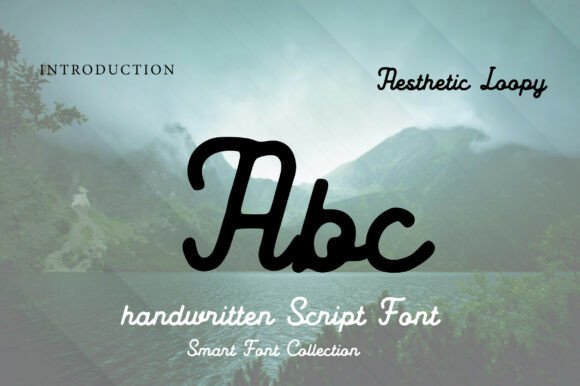
Aesthetic Loopy Font: Elevate Your Design with a Touch of Playful Elegance
In the world of typography, a font can make or break the visual appeal of a design. For those seeking a bold, smooth, and beautifully connected script font, Aesthetic Loopy is an exquisite choice. This charming font boasts loopy curves and rounded terminals, blending modern aesthetics with a soft retro touch. In this article, we’ll dive into the world of Aesthetic Loopy, exploring its features, uses, and pairing options to help designers and crafters elevate their designs.
What is Aesthetic Loopy Font?
Aesthetic Loopy is a bold, smooth, and beautifully connected script font designed to bring a playful yet stylish handwritten feel to your designs. Its charming loopy curves and rounded terminals create an eye-catching and friendly look that’s perfect for a variety of applications. Each letter flows naturally, creating a sense of movement and fluidity that’s sure to capture the attention of your audience.
Key Features of Aesthetic Loopy Font
- Bold and Smooth Lines: Aesthetic Loopy features bold, smooth lines that create a luxurious and high-end feel.
- Beautifully Connected Script: The font’s connected script style creates a sense of fluidity and movement, making it perfect for designs that require a touch of elegance.
- Loopy Curves and Rounded Terminals: The font’s loopy curves and rounded terminals add a playful touch, making it ideal for designs that require a bit of whimsy.
- Modern Aesthetics with a Soft Retro Touch: Aesthetic Loopy blends modern aesthetics with a soft retro touch, creating a unique and captivating visual style.
Uses of Aesthetic Loopy Font
Aesthetic Loopy is a versatile font that can be used in a variety of applications, including:
- Lifestyle Photography Overlays: Add a touch of elegance to your lifestyle photography overlays with Aesthetic Loopy’s smooth, connected lines.
- Skincare Packaging: Create luxurious skincare packaging with Aesthetic Loopy’s bold, smooth lines and beautifully connected script.
- Quote-Based Social Media Posts: Make your social media posts stand out with Aesthetic Loopy’s eye-catching and friendly look.
- Logos and Branding: Use Aesthetic Loopy to create stunning logos and branding materials that exude elegance and sophistication.
- Wedding Invitations and Greeting Cards: Add a touch of whimsy and romance to your wedding invitations and greeting cards with Aesthetic Loopy’s loopy curves and rounded terminals.
- Beauty Products and Boutique Branding: Create luxurious beauty products and boutique branding materials with Aesthetic Loopy’s bold, smooth lines and beautifully connected script.
- Café Menus and T-Shirts: Use Aesthetic Loopy to create eye-catching café menus and t-shirts that stand out from the crowd.
Pairing Options for Aesthetic Loopy Font
To enhance the beauty of Aesthetic Loopy, consider pairing it with:
- Delicate Serifs: Pair Aesthetic Loopy with delicate serifs for a balanced, editorial look that’s perfect for designs that require a touch of sophistication.
- Airy, Wide-Spaced Sans-Serifs: Combine Aesthetic Loopy with airy, wide-spaced sans-serifs for a modern, clean look that’s ideal for designs that require a bit of contrast.
Aesthetic Loopy is a stunning script font that can elevate your designs with its playful yet stylish handwritten feel. With its bold, smooth lines, beautifully connected script, and charming loopy curves, this font is perfect for a variety of applications. Whether you’re designing a logo, branding materials, or social media posts, Aesthetic Loopy is an exquisite choice that’s sure to capture the attention of your audience. So why wait? Try Aesthetic Loopy today and bring a touch of playful elegance to your designs!